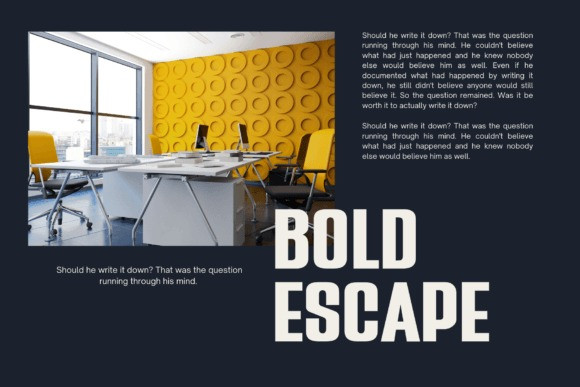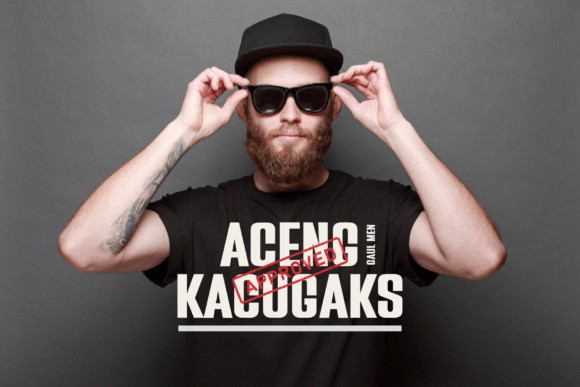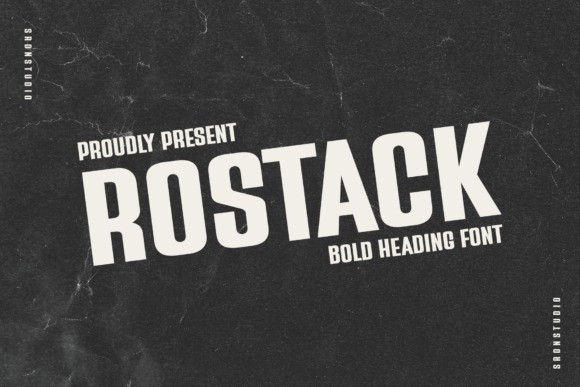
Rostack Font
Rostack Font is a bold condensed font that commands attention and makes a powerful statement. With its strong strokes and compact letterforms, it is perfect for headlines, titles, and designs that require a bold and condensed style. Deliver your message with clarity and impact using the modern sophistication of “Rostack”